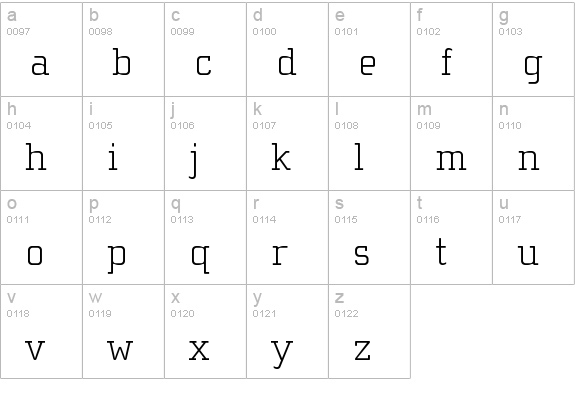
ChollaSlabThin Font Details
ChollaSlabThin is a sleek and modern typeface that exudes sophistication and elegance. With its thin, clean lines and subtle serifs, this font is perfect for projects that require a touch of refinement. Whether you're designing a website, crafting a brochure, or creating a logo, ChollaSlabThin will add a touch of class to your work. The best part? ChollaSlabThin is completely free to download at FontsMarket.com. Now you can elevate your designs without breaking the bank. Don't miss out on this opportunity to enhance your projects with this stunning font. Download ChollaSlabThin today and take your design game to the next level.